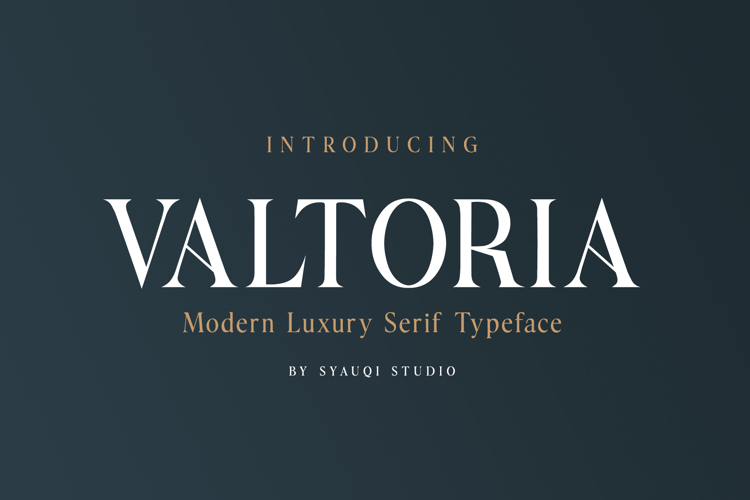
Valtoria Font
Valtoria – Modern Luxury Serif Typeface
Valtoria is a modern serif typeface that blends timeless elegance with contemporary sophistication. Designed with refined details and balanced proportions, Valtoria brings a sense of luxury, class, and exclusivity to any project.